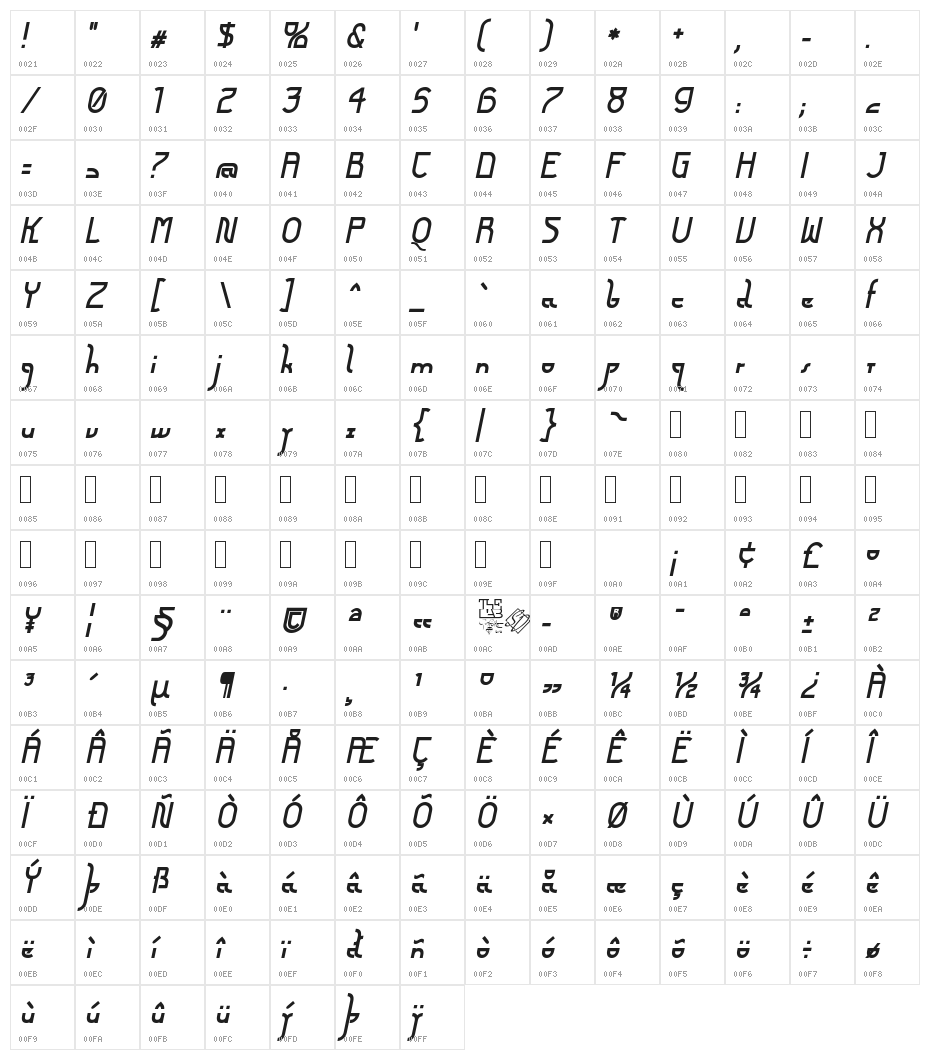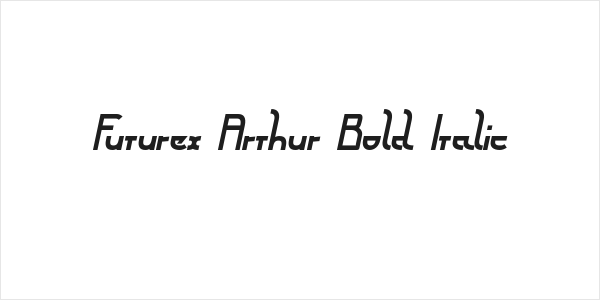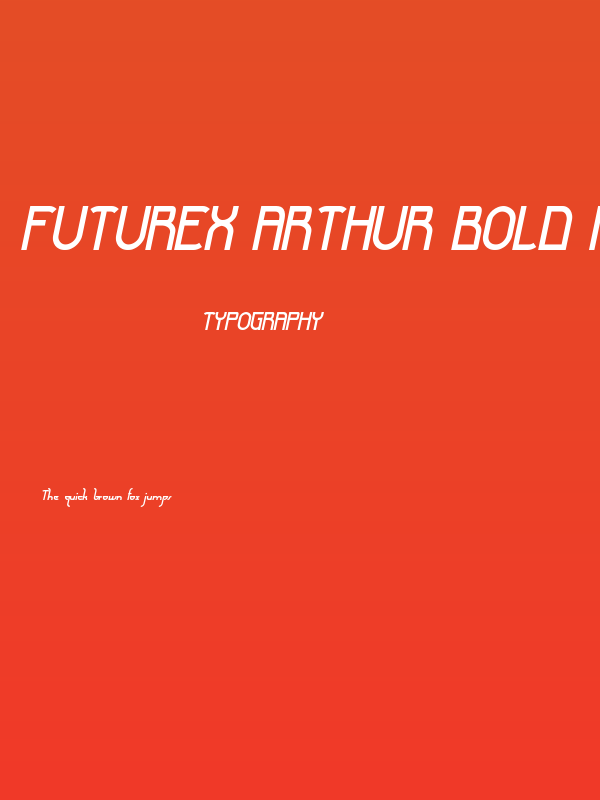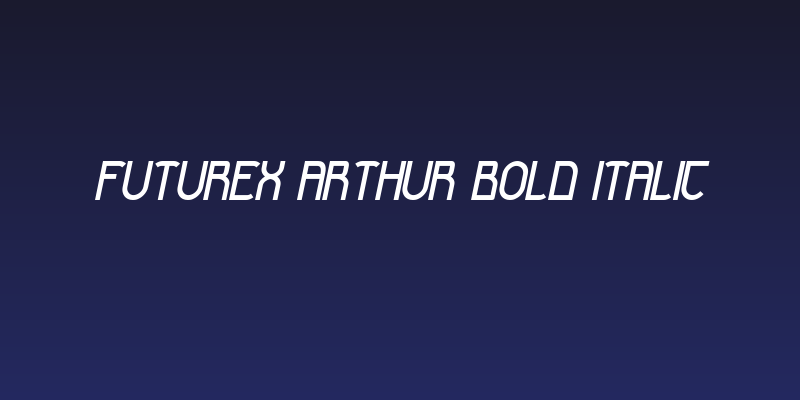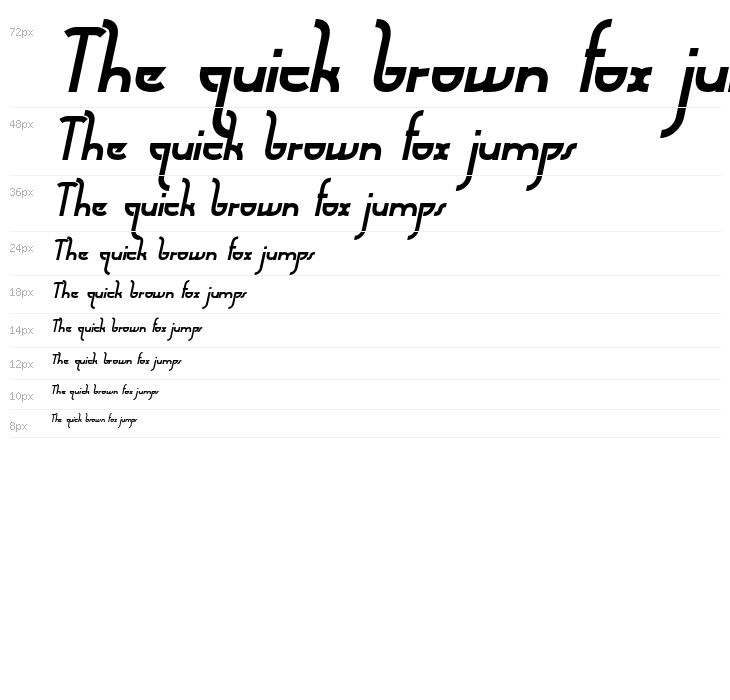
Futurex Arthur Bold Italic Font
Futurex Arthur Bold Italic Description
This font features a futuristic and dynamic design, characterized by its bold and italicized letterforms. The uppercase and lowercase letters exhibit a unique angularity, with sharp edges and a forward-leaning posture that conveys motion and modernity. The numerals are equally stylized, maintaining the same angular and italicized aesthetic. Special characters are designed to complement the overall style, ensuring consistency across all glyphs. The font's bold weight and italic slant make it particularly eye-catching, suitable for projects that require a strong visual impact.
| Proposed Projects | Ideal for sci-fi themed projects, technology branding, video game titles, and modern advertising. |